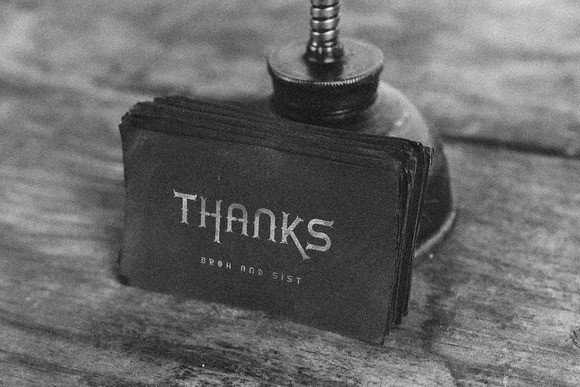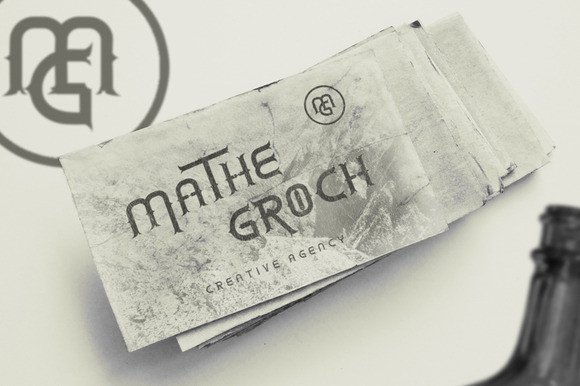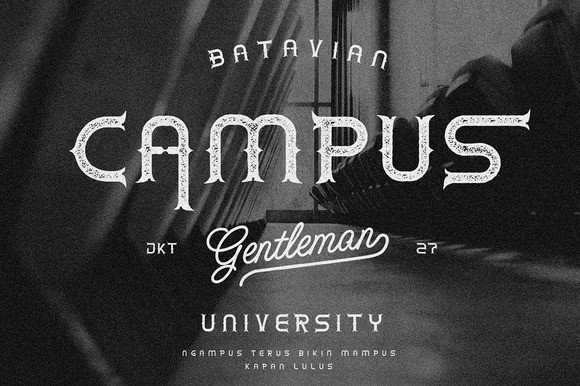
Introduction to Mustache Font Font
Fonts play a crucial role in design, and the Mustache Font font is a typeface that brings both character and versatility to any project. Whether you’re working on a branding project, a website, or a print design, the Mustache Font font offers a unique style that can elevate your work.
Mustache university is a wild vintage font inspired by oldskool signage.
Mustache university is a wild vintage font inspired by oldskool signage. Can be used for various purposes such as typography, signs, logotype, newspaper headlines, posters letterheads, and much more
Key Features of Mustache Font Font
Why Choose Mustache Font Font?
The Mustache Font font is more than just a typeface – it’s a design tool that helps you communicate your message with style and clarity. Its unique character set and versatile design make it suitable for a wide range of applications, from elegant invitations to bold headlines.
With its carefully crafted letterforms and balanced proportions, the Mustache Font font ensures readability and visual appeal across all mediums.
What makes Mustache Font font special?
The Mustache Font font stands out with its unique design, exceptional readability, and versatility across various design applications.